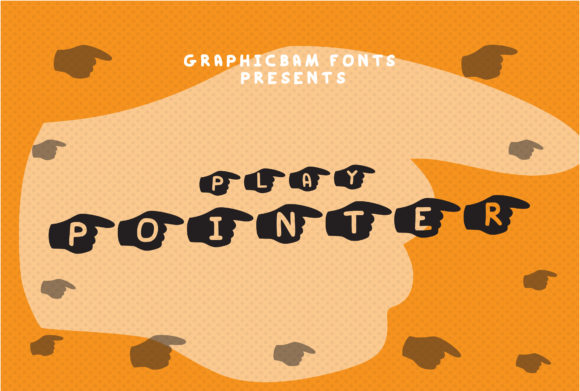
Introducing Play Pointer Font, a stunning decorative typeface that commands attention like no other. This exceptional font is the brainchild of GraphicsBam Fonts, renowned for their creative and captivating fonts. With its distinct character, Play Pointer stands as the ultimate choice for those seeking to make a bold statement in their designs.
Play Pointer is not just a font; it's an artistic masterpiece that breathes life into your projects. Its design is meticulously crafted to exude a playful and inviting charm, drawing the eyes of your audience like a magnet. Its sharp angles and playful curves create a visual symphony that dances across your designs, captivating and engaging your viewers with every stroke.
Step into a world of boundless creativity with Play Pointer. Unleash your imagination and let this remarkable font transform your branding materials, banners, invitations, and creative designs into captivating masterpieces. It's the perfect font to add a touch of fun and excitement to any project, leaving an unforgettable impression that lingers long after they've encountered your designs.
Play Pointer is more than just a font; it's an experience. Its unique character adds a touch of personality to your designs, making them stand out from the crowd. It's the perfect choice for designers seeking to create truly memorable and engaging content. Its versatility allows it to seamlessly adapt to any design style, from playful and whimsical to sophisticated and elegant.
Don't settle for ordinary fonts that blend into the background. Embrace the extraordinary with Play Pointer. Let your creativity soar as you witness the transformative power of this remarkable font. Its bold and captivating presence will leave your audience spellbound, eager to discover more about your brand and your designs.
With Play Pointer, you hold the key to unlocking a world of endless creative possibilities. Its captivating design will elevate your projects to new heights, leaving a lasting impression on your audience. So, why settle for mediocrity when you can embrace the extraordinary? Download Play Pointer today and embark on a creative journey like never before.